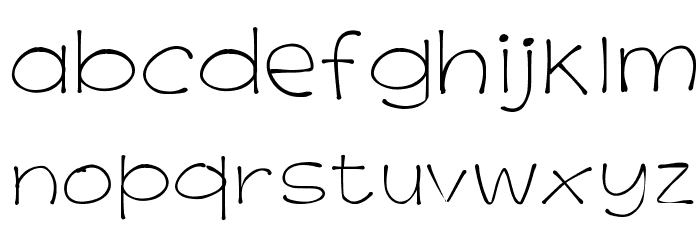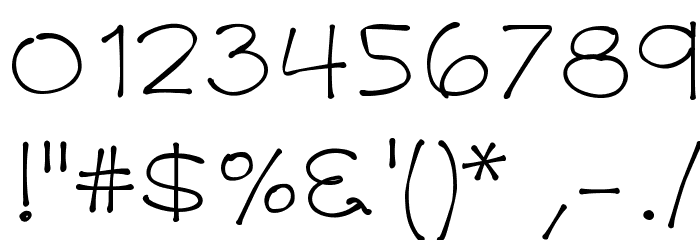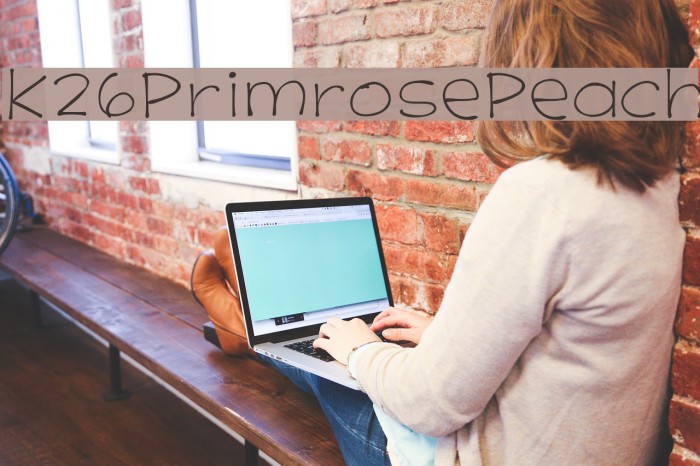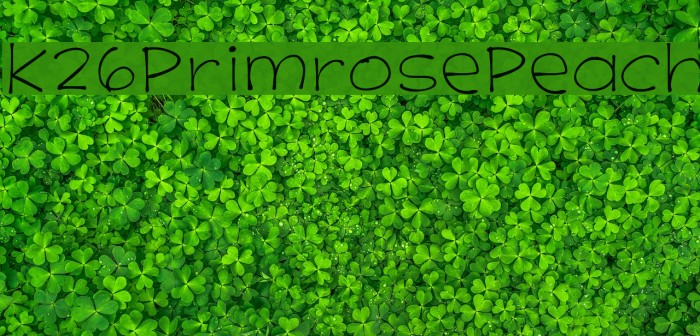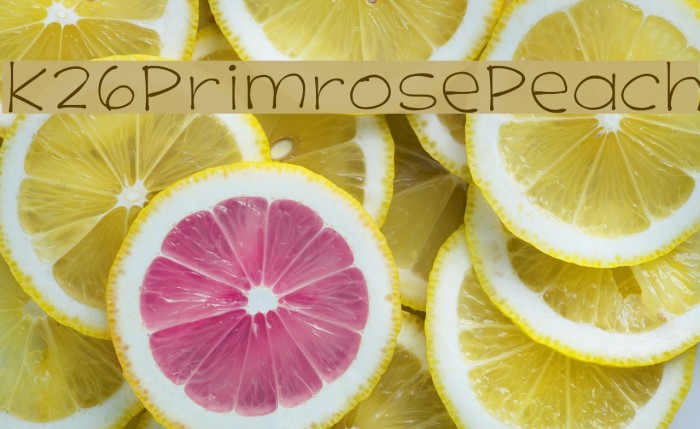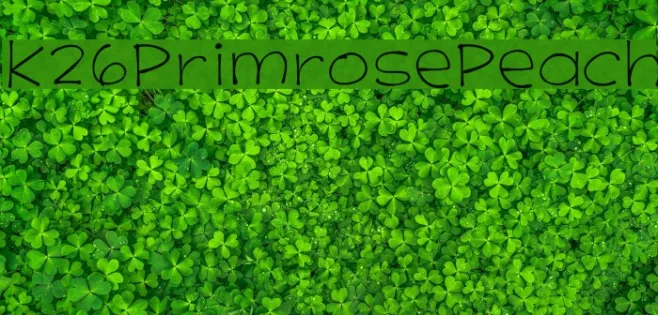
K26PrimrosePeach Font
This playful and whimsical font features a handwritten style with a casual and friendly appearance. The characters are slightly irregular, giving it a charming and approachable feel. The strokes are consistent in width, providing a uniform look across all characters. The font includes both uppercase and lowercase letters, numbers, and a variety of special characters. Its informal style makes it suitable for creative projects that require a personal touch.
- Proposed Projects: Ideal for children's books, greeting cards, invitations, and playful branding.
- Overall Style: Casual
- Use Case: Headlines, Logos, Invitations